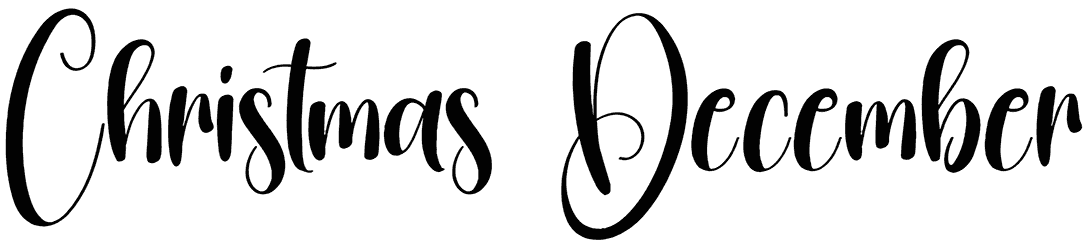
Christmas December Font
Surely having an elegant handwritten style will give a charming visual to your design, and this calligraphy font has the potential to make it happen. The Christmas December font has almost full characters, which means you can use it for any design. Use this Christmas font for your fall fashion flyer or other creative layouts and hook a lot of viewers.